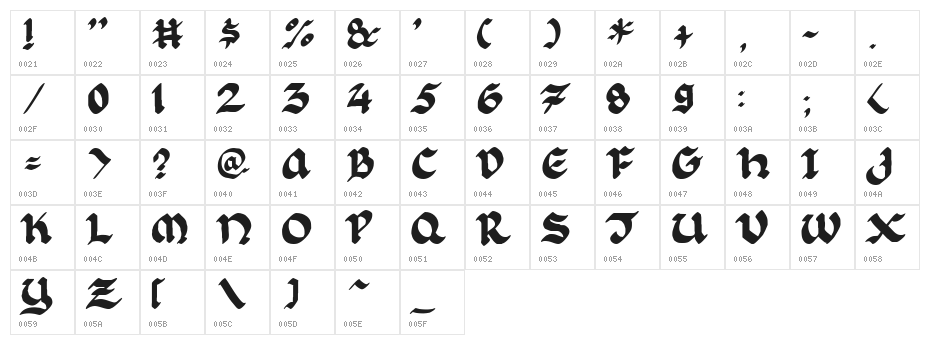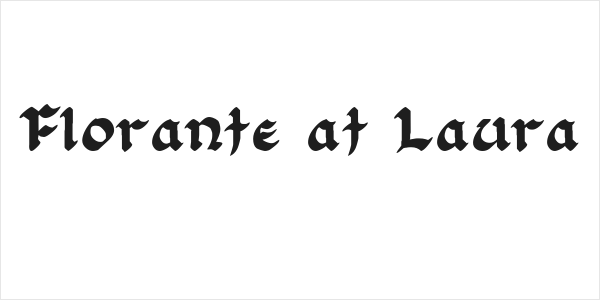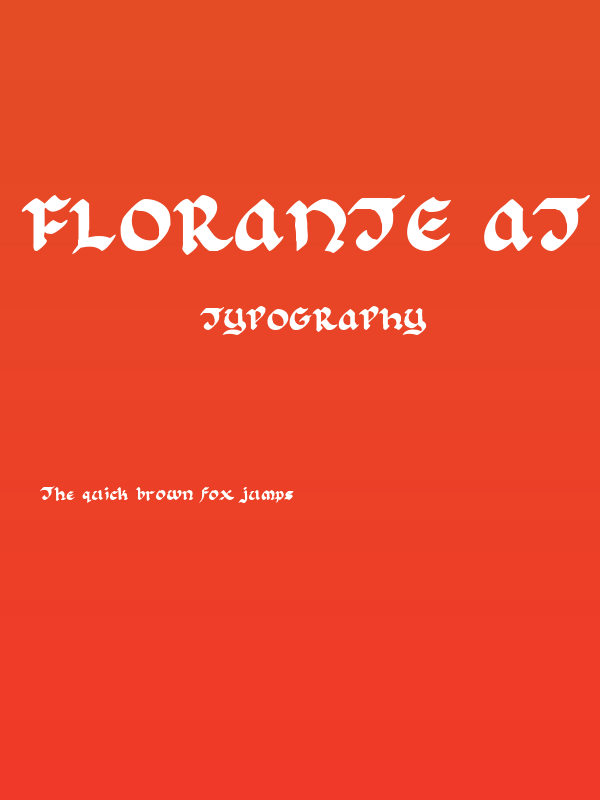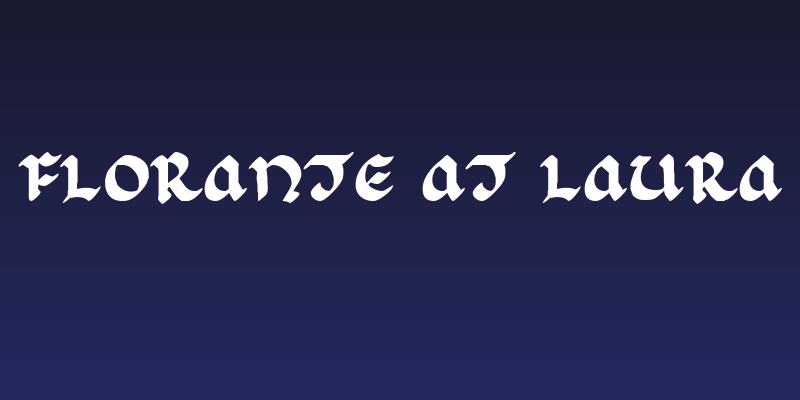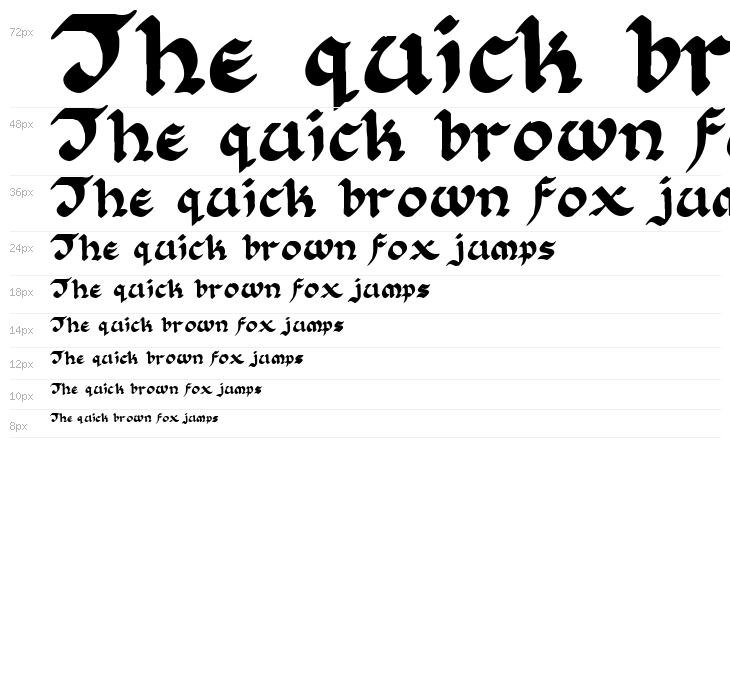
Florante at Laura Font
Florante at Laura Description
This font is a classic example of the Blackletter style, characterized by its ornate and intricate letterforms. The strokes are bold and angular, with a high contrast between thick and thin lines, giving it a dramatic and historical appearance. The serifs are sharp and pronounced, adding to the overall gothic aesthetic. The uppercase and lowercase letters maintain a consistent style, with the lowercase letters featuring distinctive loops and flourishes. The numerals and special characters are equally detailed, fitting seamlessly with the alphabetic characters. This font evokes a sense of tradition and formality, often associated with medieval manuscripts and early printed books.
| Use Case | Headlines, Logos, Decorative text |
| Proposed Projects | Ideal for projects requiring a historical or gothic touch, such as book covers, posters, or branding for vintage-themed products. |